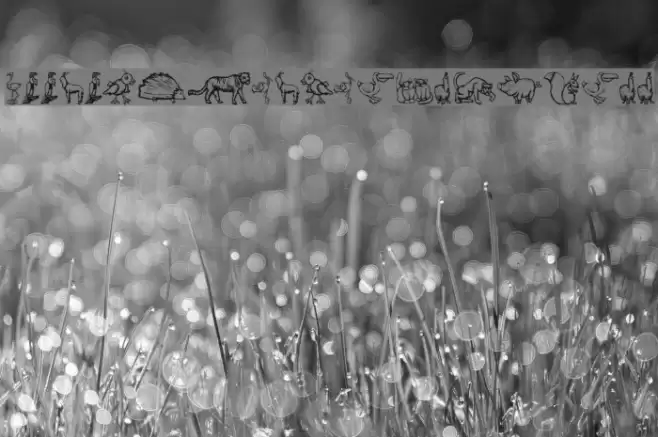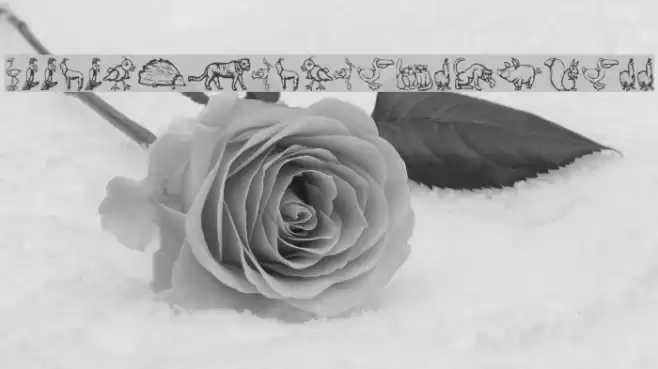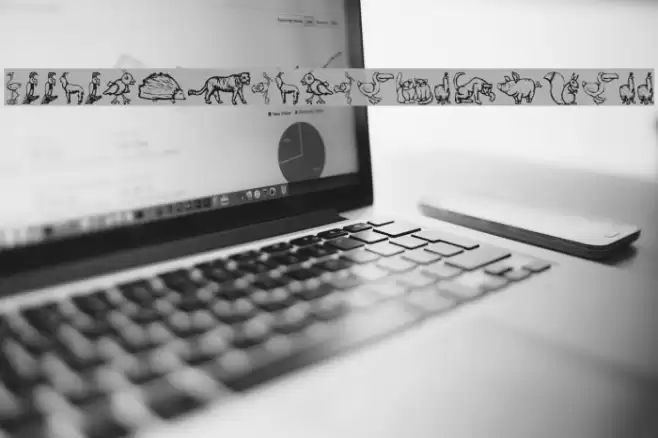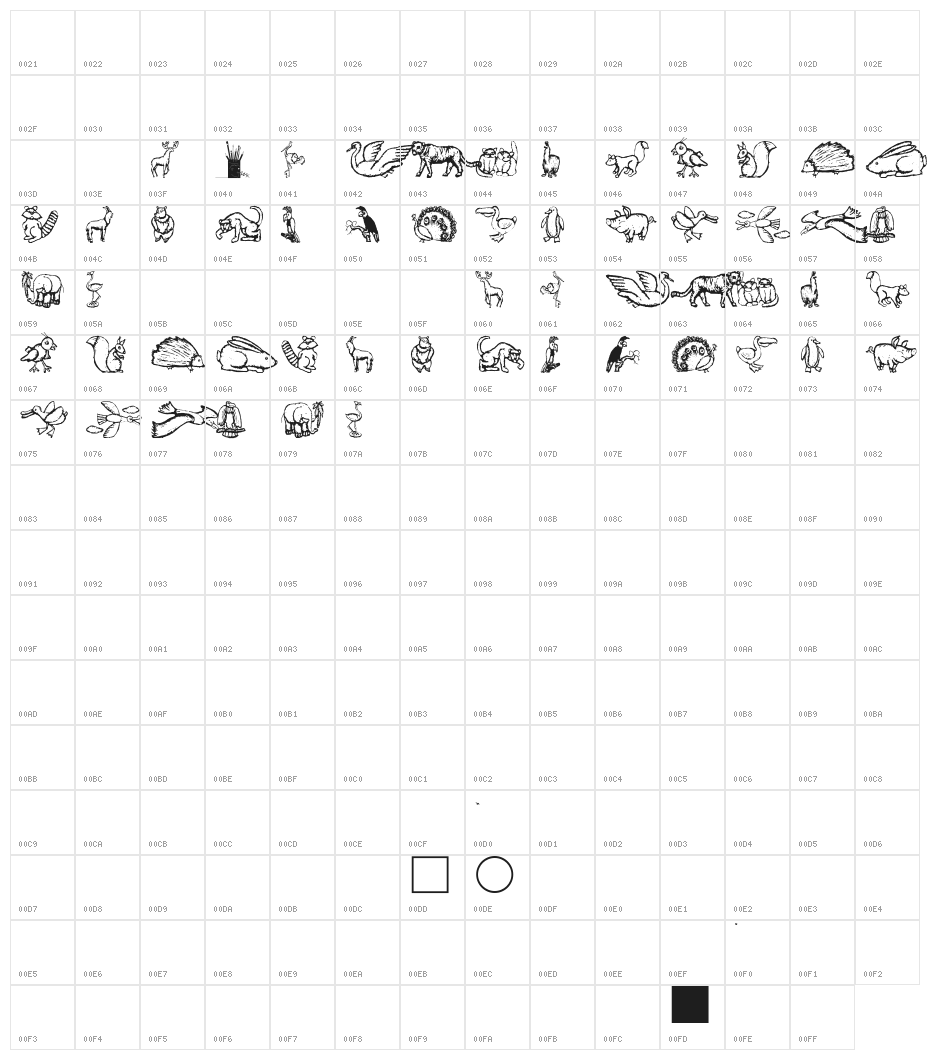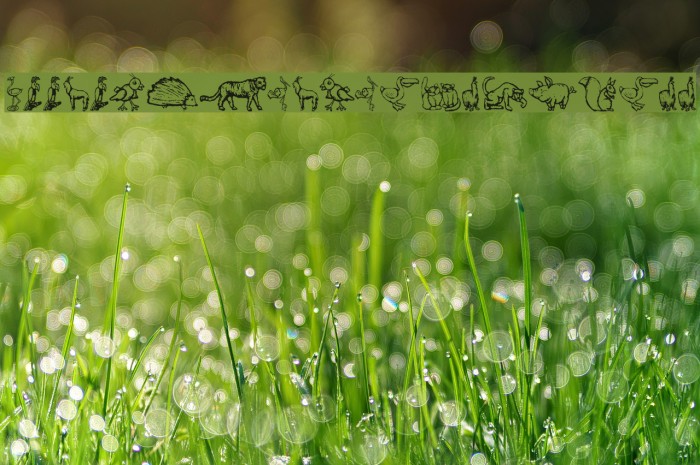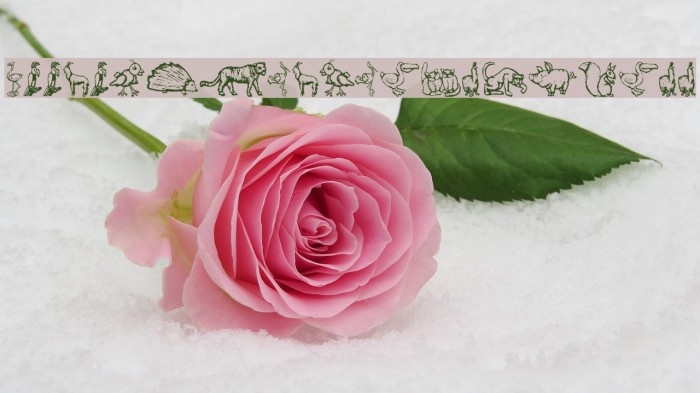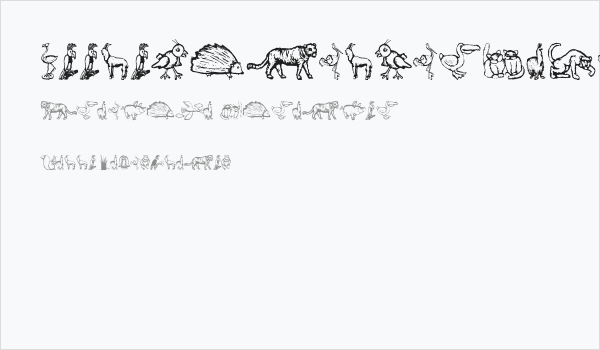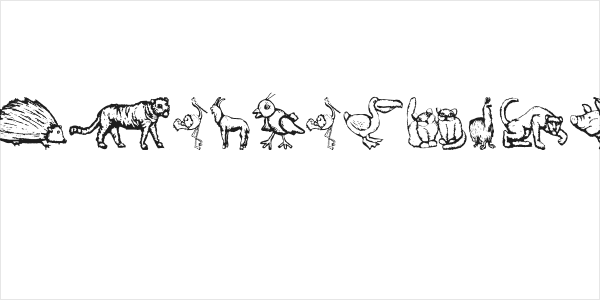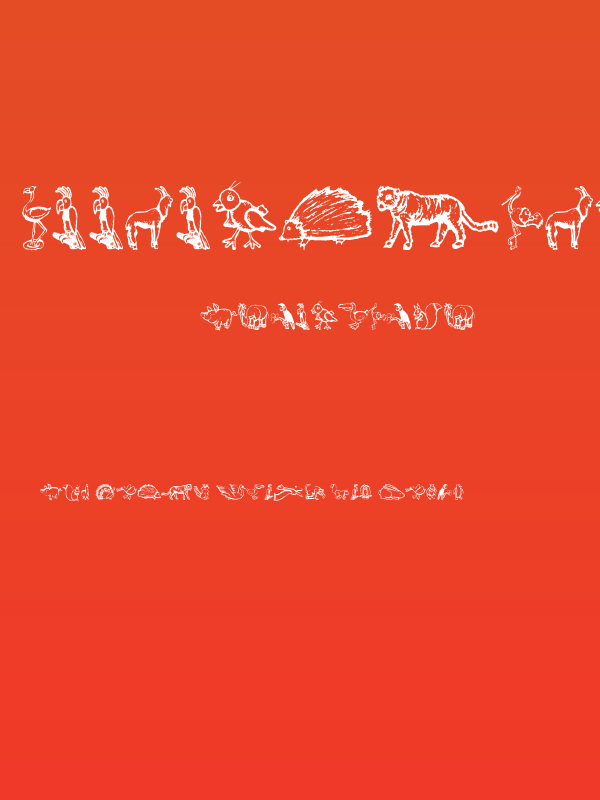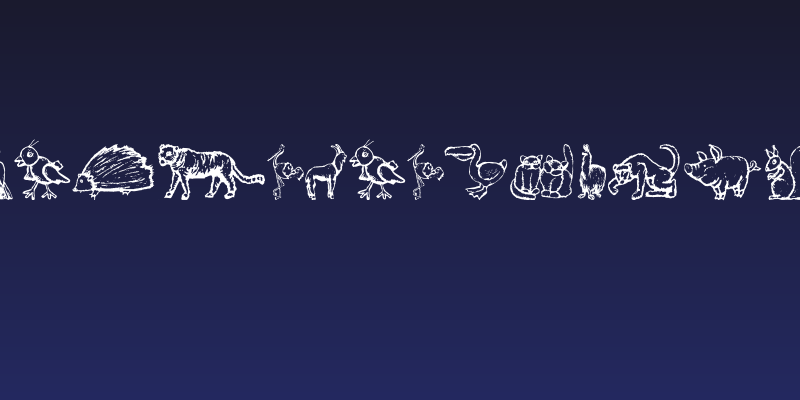
ZoologicalGardenThree Font
ZoologicalGardenThree Description
This font is a whimsical and playful collection of animal illustrations, each representing a different character or symbol. The designs are detailed and cartoonish, capturing the essence of various animals with a light-hearted and fun approach. Each character is unique, featuring animals like birds, mammals, and other creatures, making it ideal for projects that require a touch of nature or a playful theme. The illustrations are hand-drawn, giving them a personal and artistic feel, perfect for children's books, educational materials, or creative projects that aim to engage and entertain.
A playful, hand-drawn animal illustration font perfect for creative projects from Uncategorized fonts.
- Proposed Projects: Ideal for children's books, educational materials, greeting cards, and creative branding projects.
- Overall Style: Whimsical, Playful
- Use Case: Logos, Decorative elements, Educational materials